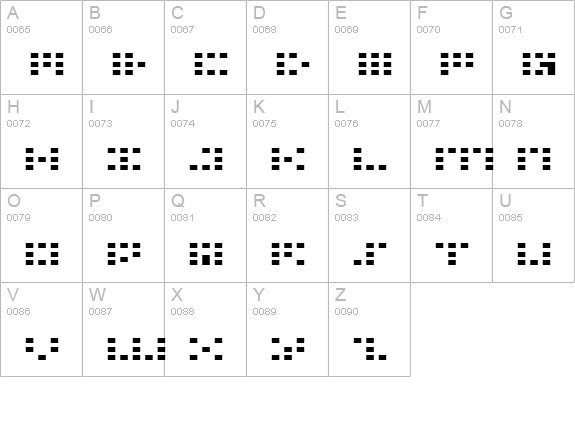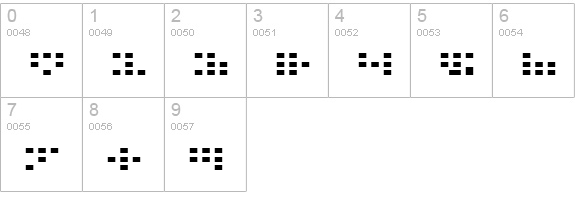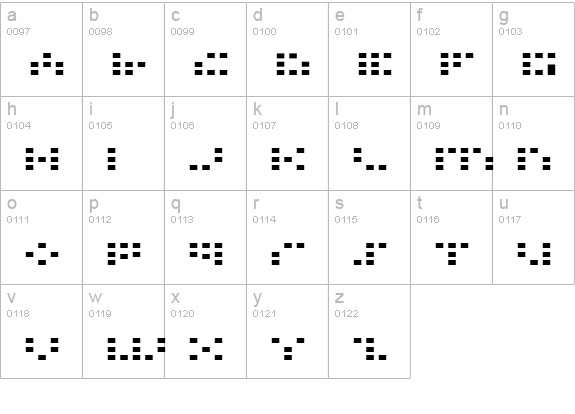
Iconian Expanded is a distinctive, extended-width variant in the Iconian typeface family \xE2\x80\x94 well suited to design and typography projects.
Iconian Expanded is a bold and versatile font that exudes power and creativity. With its clean lines and modern design, this font is perfect for making a bold statement in any project. Whether you're designing a logo, creating a poster, or crafting a striking headline, Iconian Expanded will make your text stand out from the crowd. Not only does Iconian Expanded offer a wide range of characters and symbols, but it also includes a set of decorative elements that add an extra touch of flair to your designs. From arrows and shapes to icons and ornaments, this font gives you the freedom to create truly eye-catching compositions. What sets Iconian Expanded apart from other fonts is that it is not only visually stunning, but it is also free to download. That's right, this font is available for free at FontsMarket.com, a trusted source for high-quality fonts. Whether you're a professional designer or a hobbyist, you can enjoy the benefits of Iconian Expanded without breaking the bank. So why wait? Download Iconian Expanded today and unleash your creativity. With its boldness, versatility, and the fact that it's free, this font is a must-have for any designer looking to make a lasting impression. Stand out from the crowd and elevate your designs to new heights with Iconian Expanded.